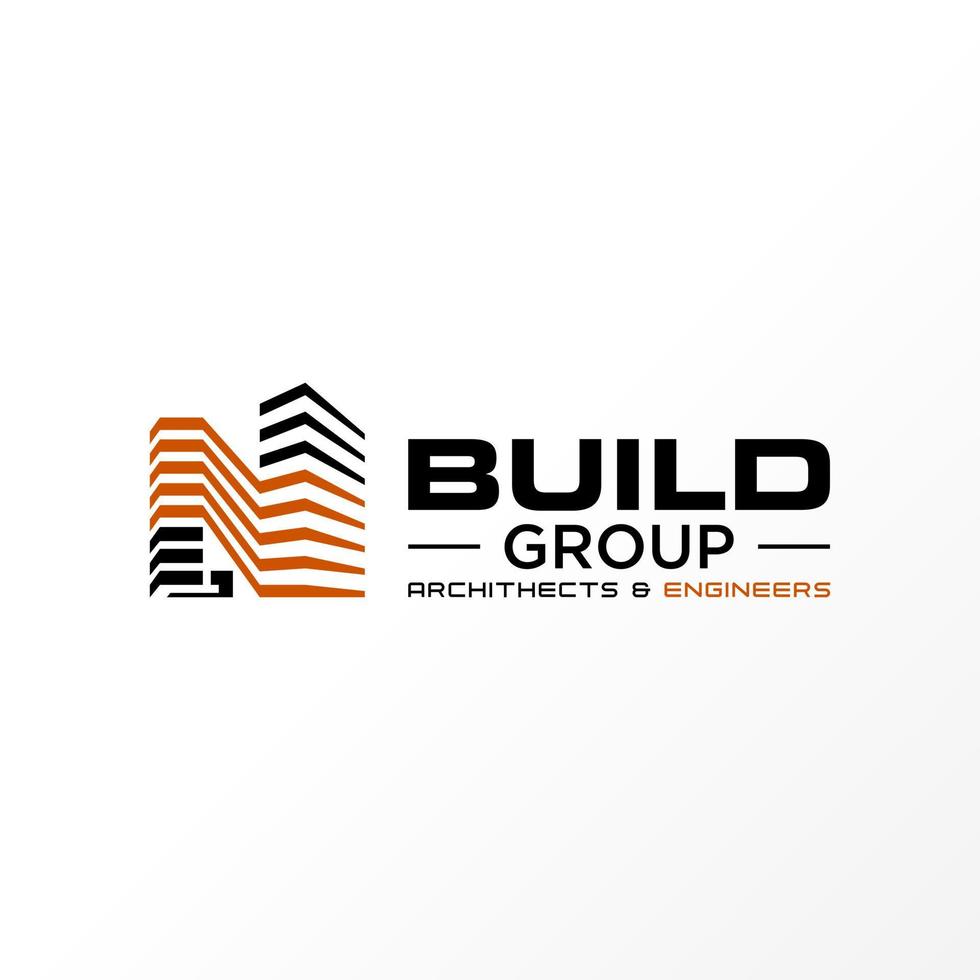
Letter or word N font in 3D with building shape image graphic icon logo design abstract concept vector stock. Can be used as a symbol related to architecture or initial Pro Vector